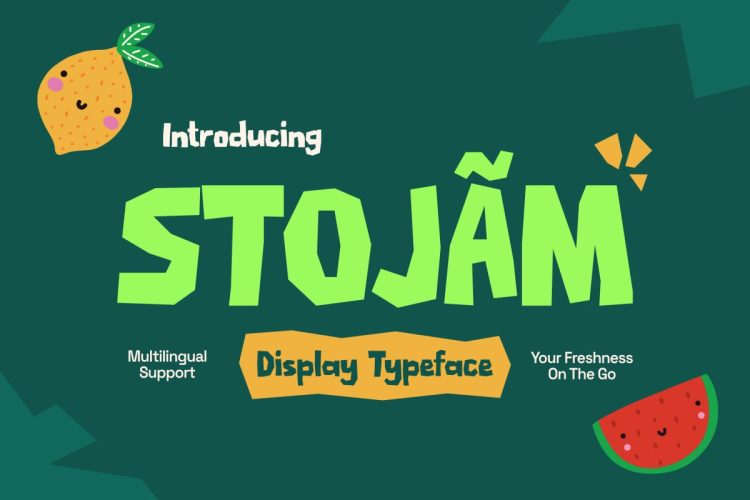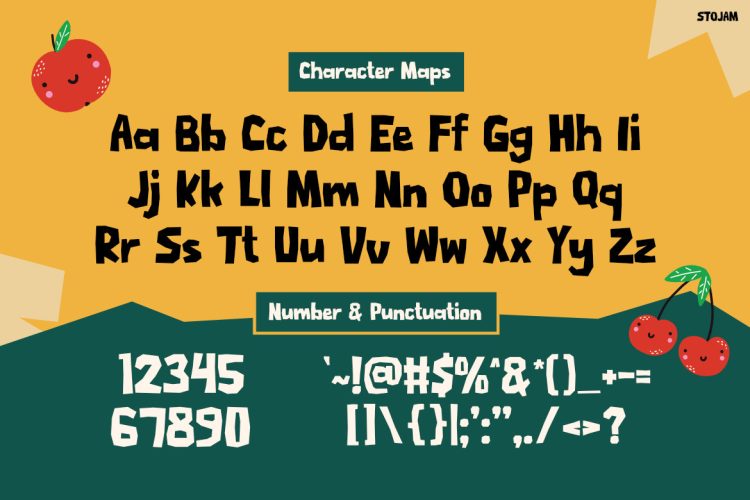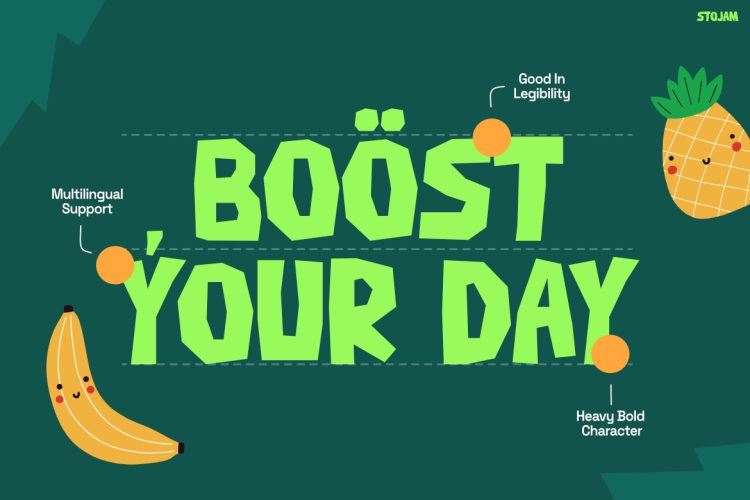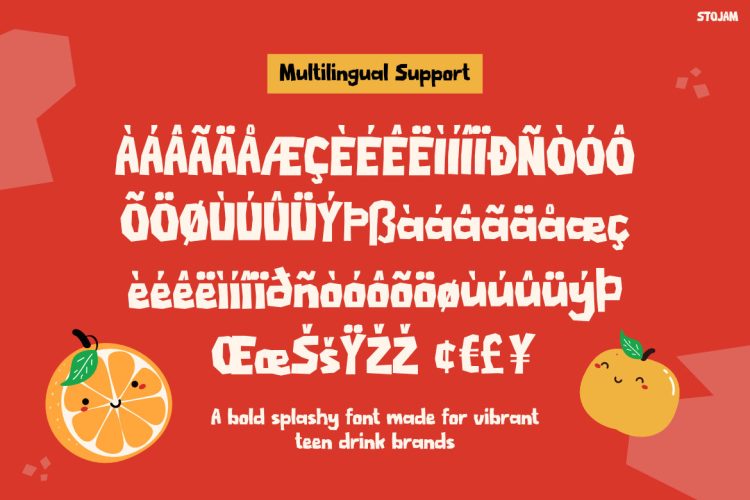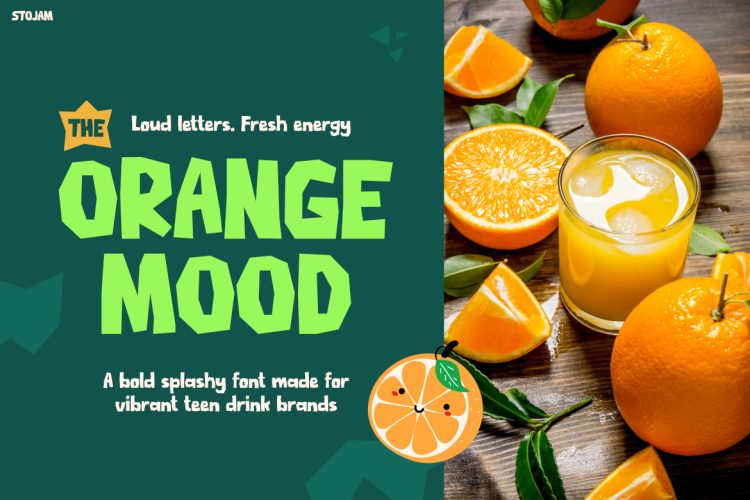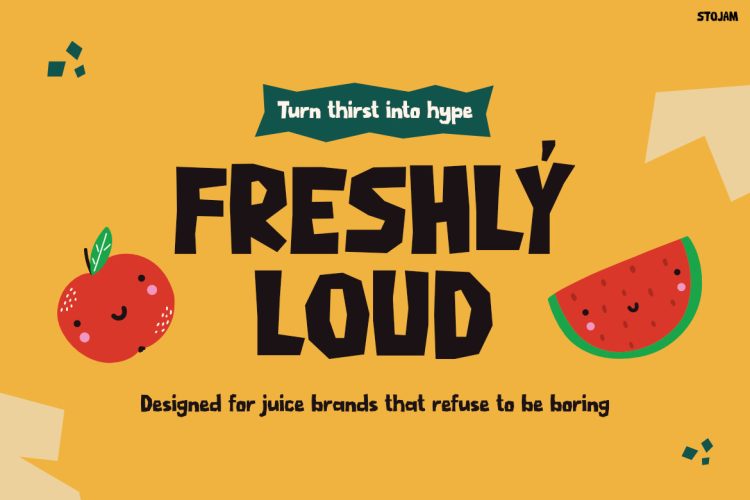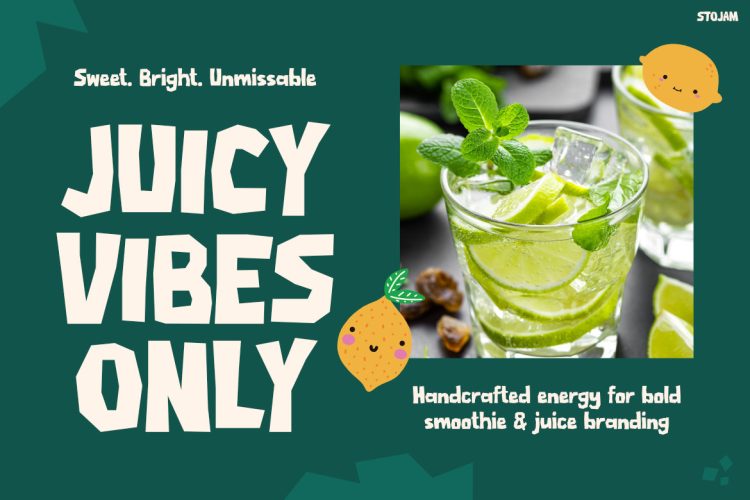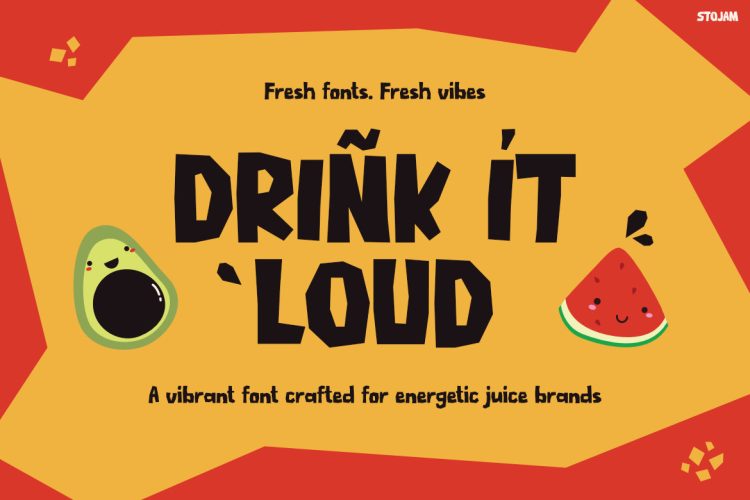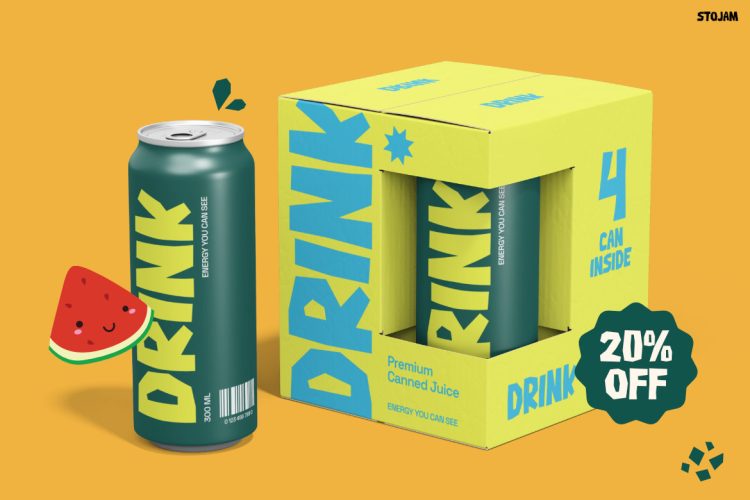
STOJAM โ Loud, Juicy Display Font Full of Fresh Energy
Instagram Font STOJAM explodes with bold personality, playful shapes, and juicy visual energy that instantly grabs attention. Its chunky, irregular letterforms create a vibrant hand-crafted style that feels fresh, expressive, and full of life. Moreover, the slightly uneven strokes and energetic curves give this font a fun organic character, making every word look dynamic and exciting. The design balances bold impact with strong readability, so your headlines stay clear while still looking playful and unique. In addition, STOJAM delivers a bright, youthful vibe that fits perfectly with colorful and energetic branding. With support for 67 languages, this font helps your creative message reach audiences worldwide while maintaining its lively personality.
STOJAM is a bold display font designed to bring fresh energy into your creative work. Its thick shapes and playful character give designs a strong visual presence. As a result, headlines instantly become more expressive and memorable. The font blends a handcrafted feel with modern bold typography, which makes it perfect for vibrant branding and marketing visuals. Furthermore, its lively structure works beautifully in posters, packaging, and digital graphics. Whether you create colorful layouts or bold promotional designs, STOJAM helps your work look energetic, modern, and full of personality.
STOJAM is ideal for designers, beverage brands, and creative businesses that want to build a bold and fun identity. It works especially well for juice brands, smoothie packaging, drink labels, snack brands, and food promotions. In addition, the font fits social media graphics, posters, advertisements, and playful product branding. Not only does it capture attention quickly, but it also creates a cheerful and energetic visual style that audiences instantly remember.